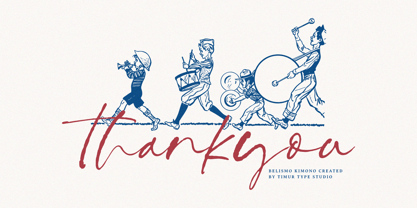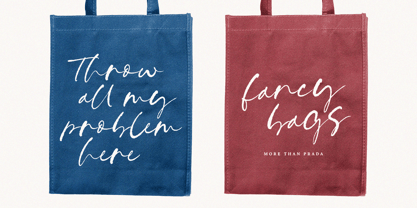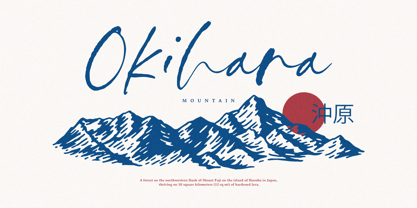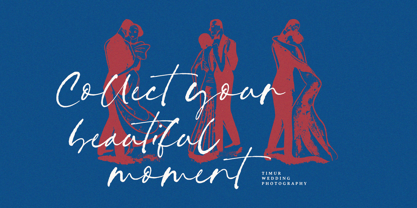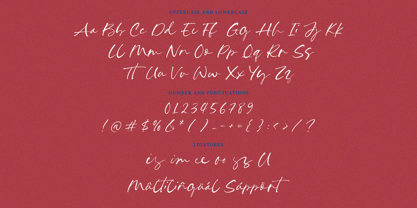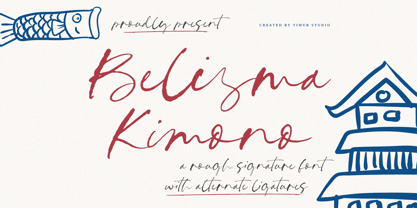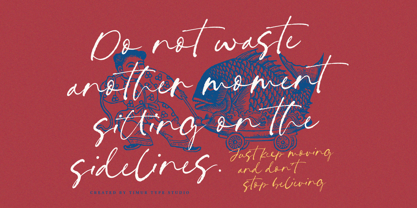
Belisma Kimono
by Timurtype
The Belisma Kimono Font Family was designed by Wara Sigit Tri Pamungkas and published by Timurtype. Belisma Kimono contains 1 styles. More about this family
Introduced by Timurtype Studio!
Belisma Kimono is a Rough Signature Font
This font is a playful handwritten signature font with a whimsical charm. Its rough, organic strokes, complemented by alternate ligatures that add variety and flair. Perfect for creative branding, invitations, or artistic projects seeking a touch of elegance with a free-spirited twist.
Belisma Kimono also supports multilingualism